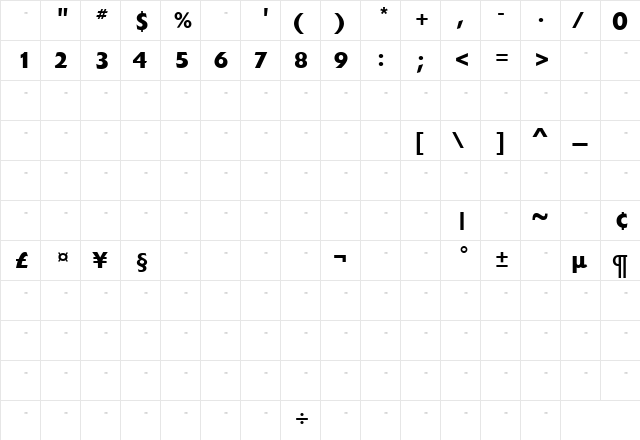
ExtensionBoldTab Roman
Design Context for ExtensionBoldTab Typeface
ExtensionBoldTab is a composed and adaptable typeface that performs quietly and consistently across a wide range of design contexts. Its bold stroke weight gives it real presence on the page.
Pro Tip: Use ExtensionBoldTab in both headline and body roles to test its range before committing to a single application.